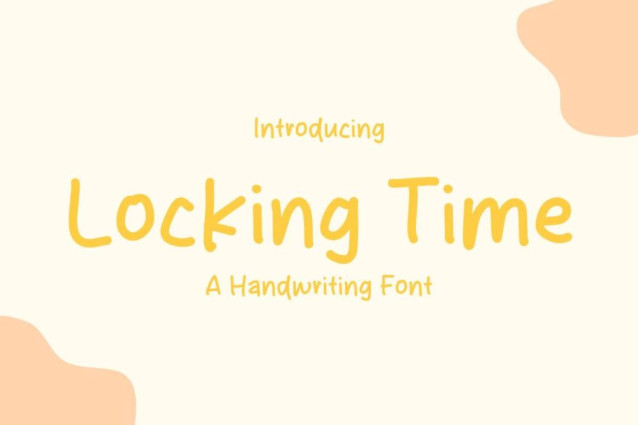
Locking Time Font
Locking Time Font is a simple and friendly handwritten font. Its natural and unique style makes it incredibly fitting to a large pool of designs. The only limit is your imagination!